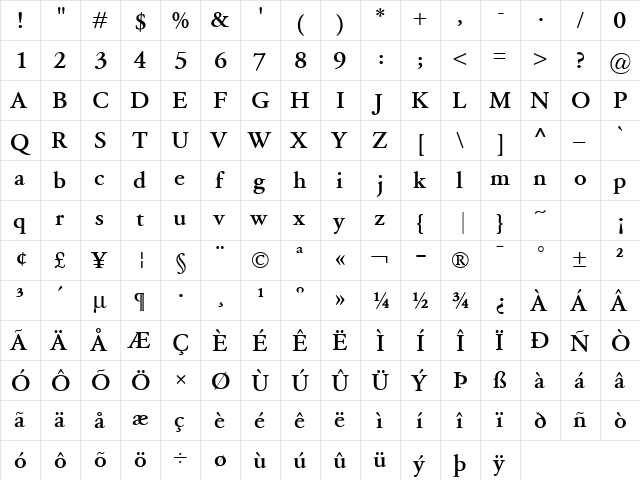
Garamond Classico Bold
Design Context for Garamond Classico Typeface
Garamond Classico wears its vintage influences proudly, with letterforms that recall mid-century signage, classic packaging, and nostalgia-driven design. The heavy weight commands attention and anchors typographic hierarchies.
Ideal for diner signage, record shop branding, 70s/80s-themed projects, and heritage product labels.
Font Pairing: Combine Garamond Classico with a simple slab or neutral sans — period-accurate companions reinforce the vintage feel without competing for attention.
Pro Tip: Lean into Garamond Classico's period character by pairing it with aged paper textures, muted colour palettes, and vintage illustration styles.